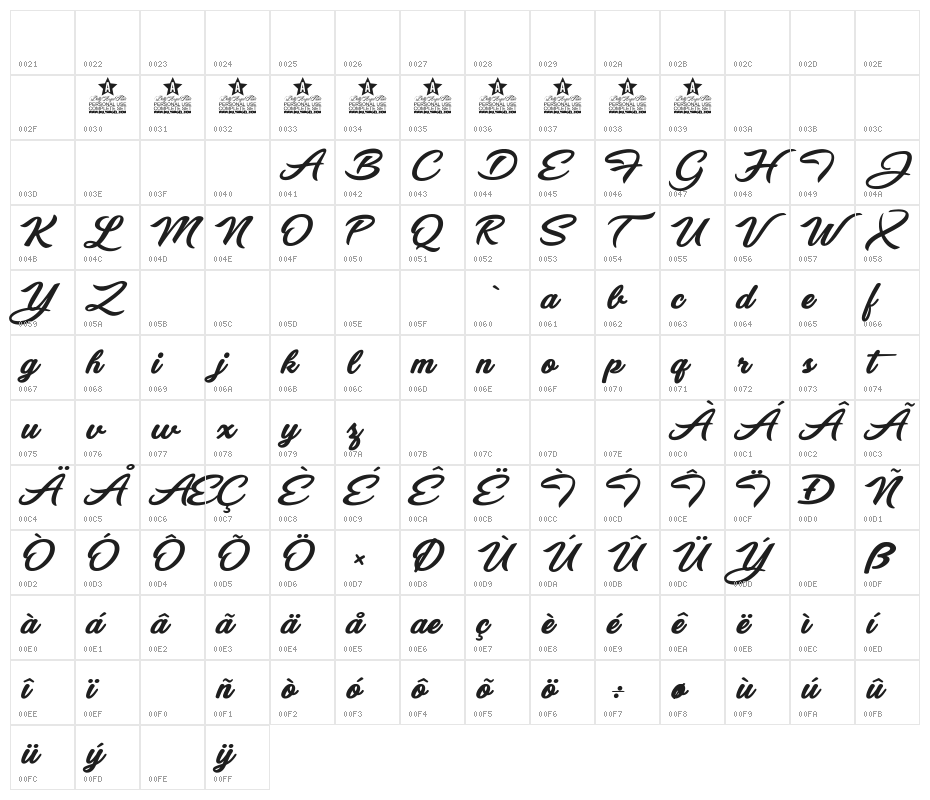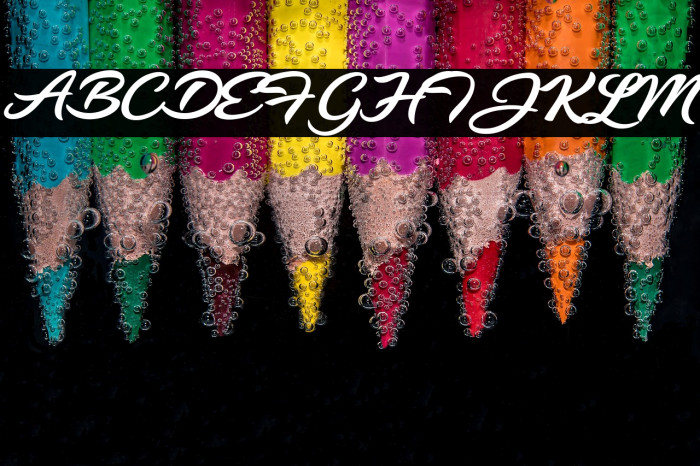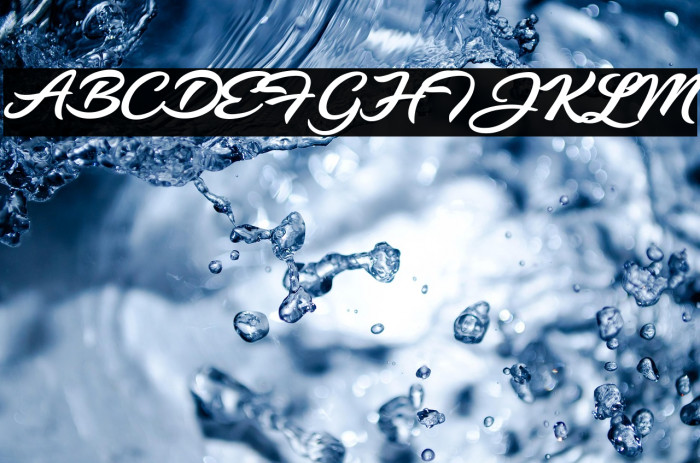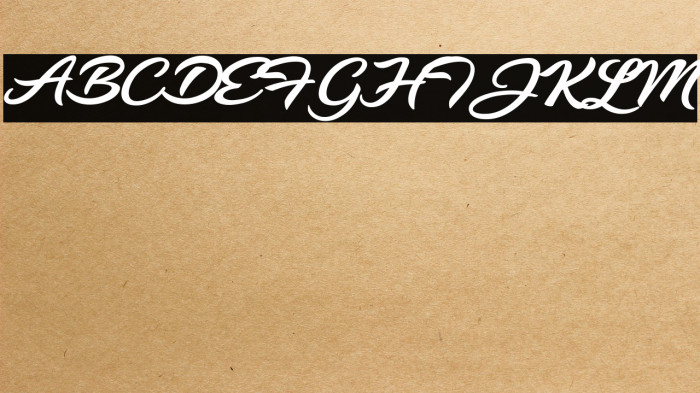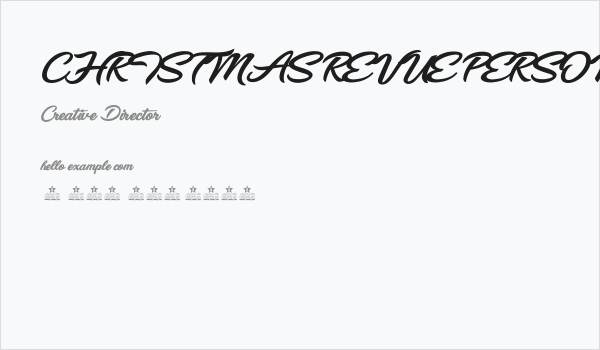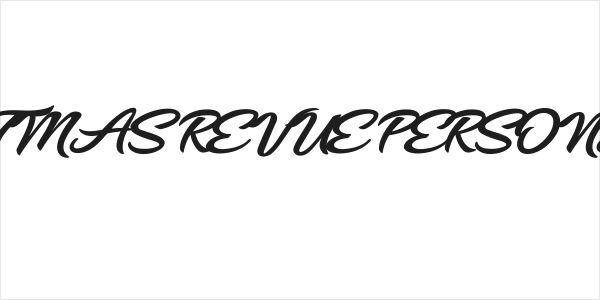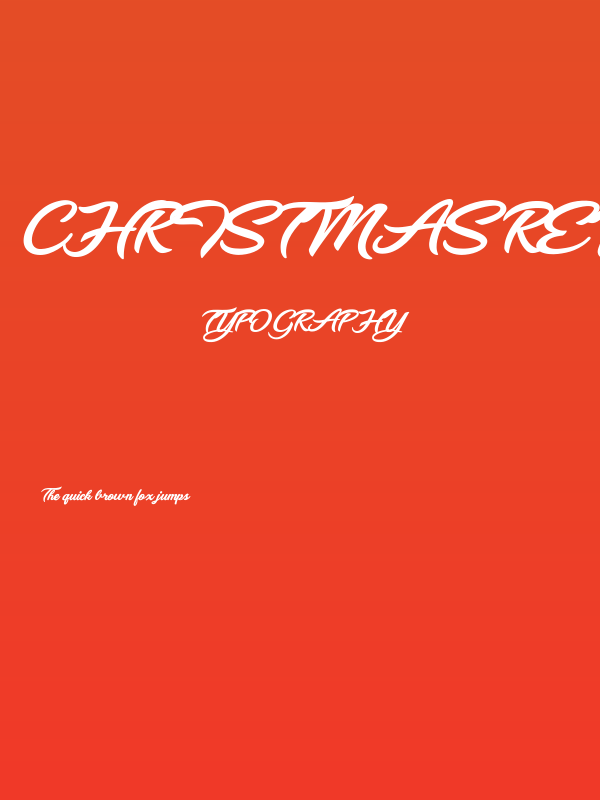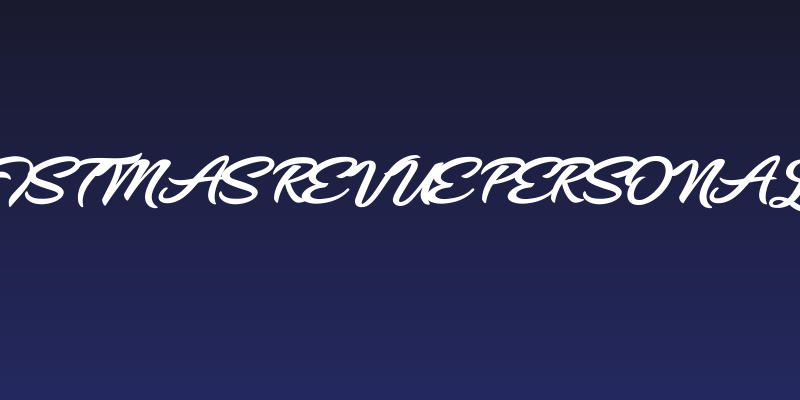
CHRISTMAS REVUE PERSONAL USE Font
CHRISTMAS REVUE PERSONAL USE Description
This font features a bold and flowing script style, characterized by its elegant and cursive letterforms. The uppercase letters are slightly more ornate, with sweeping curves and flourishes that give a sense of movement and grace. The lowercase letters maintain a consistent flow, with smooth connections between each character, enhancing readability while retaining a stylish appearance. The font's bold weight adds a strong visual impact, making it suitable for attention-grabbing designs. Its overall aesthetic is both modern and classic, offering versatility for various design applications.
| Overall Style | Modern, Classic |